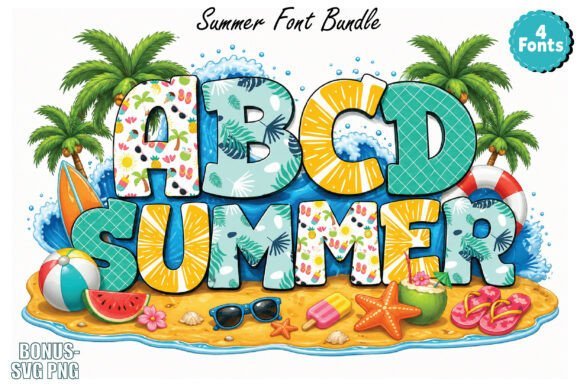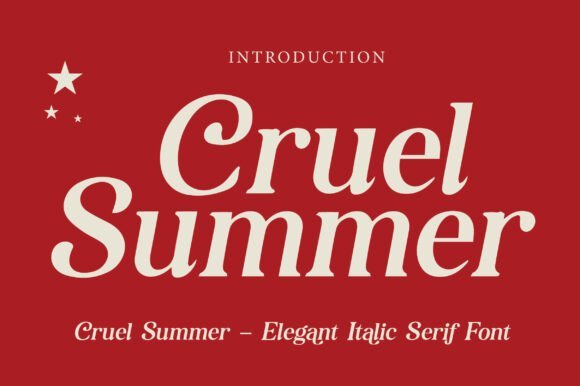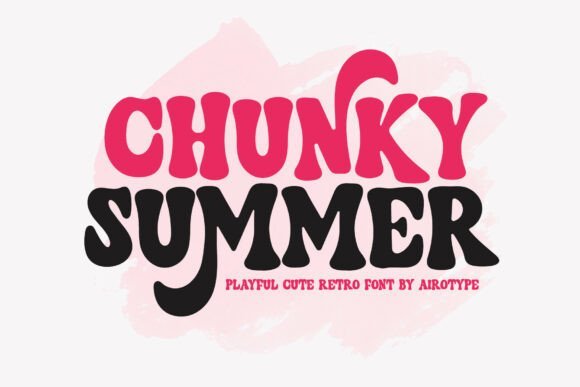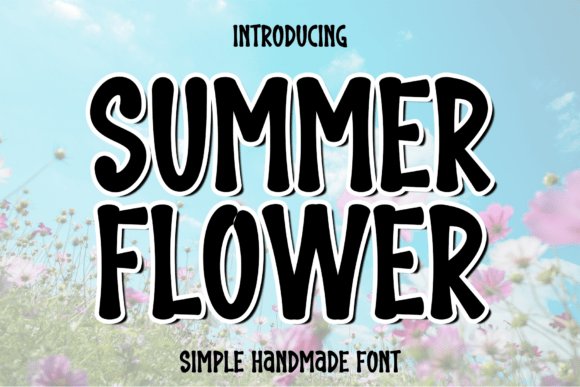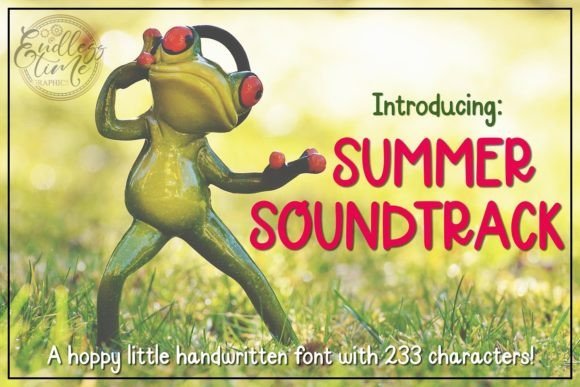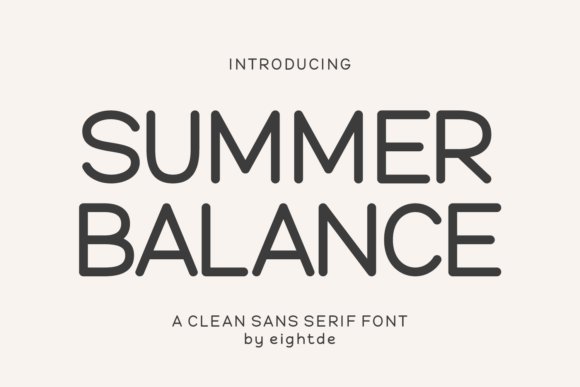
24 Sunny Summer Logo Font Ideas for Beachwear Labels in 2026
Summer logo font choices set the mood long before any other design element does. A well-picked typeface can read airy and relaxed, sun-faded and nostalgic, or crisp and beach-ready within seconds.
This article walks through the full collection of 24 curated typefaces imported from a high-quality database, with quick notes on mood, pairing ideas, and best-fit uses like beachwear labels, café menus, and festival posters.
1. Summer Fresh
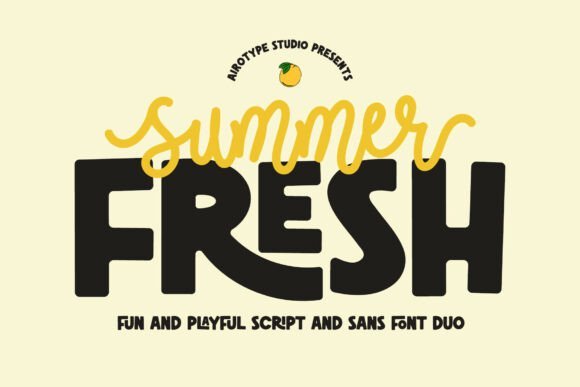
As a Summer logo font Summer Fresh pairs a bouncy monoline script with a chunky, cute sans to make marks that feel friendly and confident. The script’s short lowercase tails keep letterforms compact and modern while the sans brings thick strokes and a handful of ligatures for playful rhythm; each style works alone or as a tight duo for headline-to-subhead relationships.
The overall mood reads cheerful and tactile, which suits stickers, kid-oriented packaging, tumblers, and bold display uses where readability matters at small scale. Swap the script for initials in a logo lockup and use the sans for product labels or captions-colorblocking and heavy ink traps help this pair pop on merch and signage.
My Recommendation: I’d reach for Summer Fresh when I need bold personality without fussy ornament. The script gives warmth for a brand name while the chunky sans carries supporting text legibly across labels, stickers, and tees. It’s especially useful for children’s products, party goods, and casual lifestyle brands that want an upbeat, handcrafted look.
2. Summer Flower
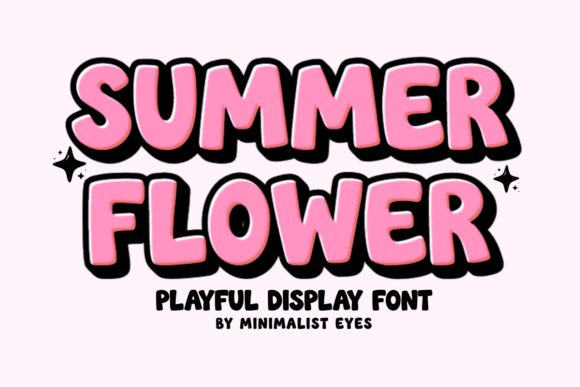
Summer Flower is a rounded display face built to read as hand-drawn and joyful; thick, soft terminals and wide counters make each glyph feel approachable and bold. It comes PUA encoded so accessing alternates and special characters is straightforward, and the heavy curves are forgiving for cutting machines like Cricut and Silhouette, which keeps edges clean on vinyl and heat transfer vinyl projects.
Because its shapes are exaggerated and readable at large sizes, the font excels on greeting cards, party banners, nursery prints, and seasonal packaging where a friendly presence helps sell the mood. Try pairing it with a thin script or a restrained geometric sans to let the bubbly letters take center stage in logos, labels, and social graphics.
My Recommendation: I use Summer Flower when a project needs an instantly cheerful headline that cuts cleanly for craft applications. It’s perfect for party invitations, vinyl decals, kids’ apparel, and seasonal product labels because of its bold curves and PUA support. The type’s straightforward shapes reduce cutting errors and keep production smooth across DIY and small-batch runs.
3. Summer Hipster
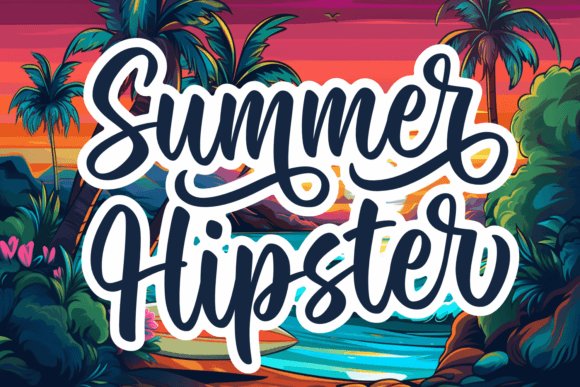
Summer Hipster reads like an upbeat hand-lettered signature: loose, slightly irregular strokes give it an authentic, friendly voice without feeling messy. The design includes a range of glyphs and ligatures that let you switch between compact wordmarks and more decorative headlines, which makes it flexible for logos, packaging, wedding stationery, or blog headers.
Because it’s optimized for legibility at display sizes, Summer Hipster performs well in print and on-screen, particularly when paired with a minimal sans for body text. Use its alternates to craft distinguishing logotypes or to add personality to product tags, social banners, and labels that need a casual, human touch.
My Recommendation: I’d pick Summer Hipster when a brand needs a relaxed, handcrafted tone that still reads clearly across touchpoints. Its ligatures and alternates help create unique name treatments while remaining practical for packaging and editorial headers. It’s my go-to for artisan goods, lifestyle brands, and informal wedding materials that want charm without sacrificing clarity.
4. Summer Beach
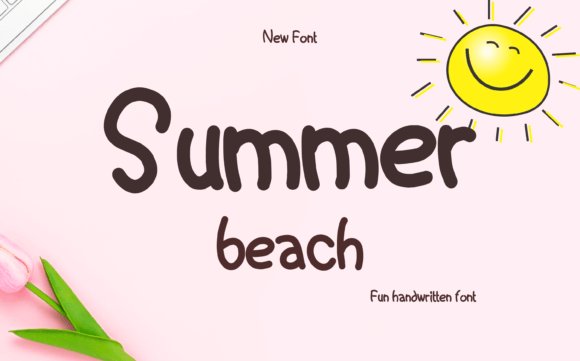
Summer Beach is a refined monoline handwriting with playful swash endings and a relaxed rhythm that reads well at display sizes. As a Summer logo font it blends casual calligraphic strokes with tidy counters, offering alternates and ligatures that give logotypes a handcrafted feel while still keeping composition clean for packaging, invitations, posters, and signwork.
The font ships with PUA Unicode access so stylistic sets and special glyphs are available in most common design apps without extra plug‑ins; that makes it simple to pick swash alternates or create a signature lockup. For best results use slightly tightened tracking for wordmarks, pair it with a neutral sans for extended copy, and convert to outlines before production on labels or embroidery.
My Recommendation: I reach for Summer Beach when I want a brand to feel laid‑back but designed-think coastal cafés, wedding suites, boutique product labels. Its PUA Unicode characters make customization fast, and the swash options let you craft distinctive marks without heavy lettering work. Use it for logotypes, packaging accents, or any project that benefits from a friendly handwritten signature.
Try a few of these 24 options side by side in your real layouts-logos, tags, and signage all reveal different strengths at scale and color. Mixing a warm script with a clear sans or choosing a retro display with restrained spacing often yields the strongest summer vibe.
Use the list as a practical starting point: test fonts on mockups, check legibility at small sizes, and let texture, weight, and personality guide the final pick for your seasonal or coastal projects.